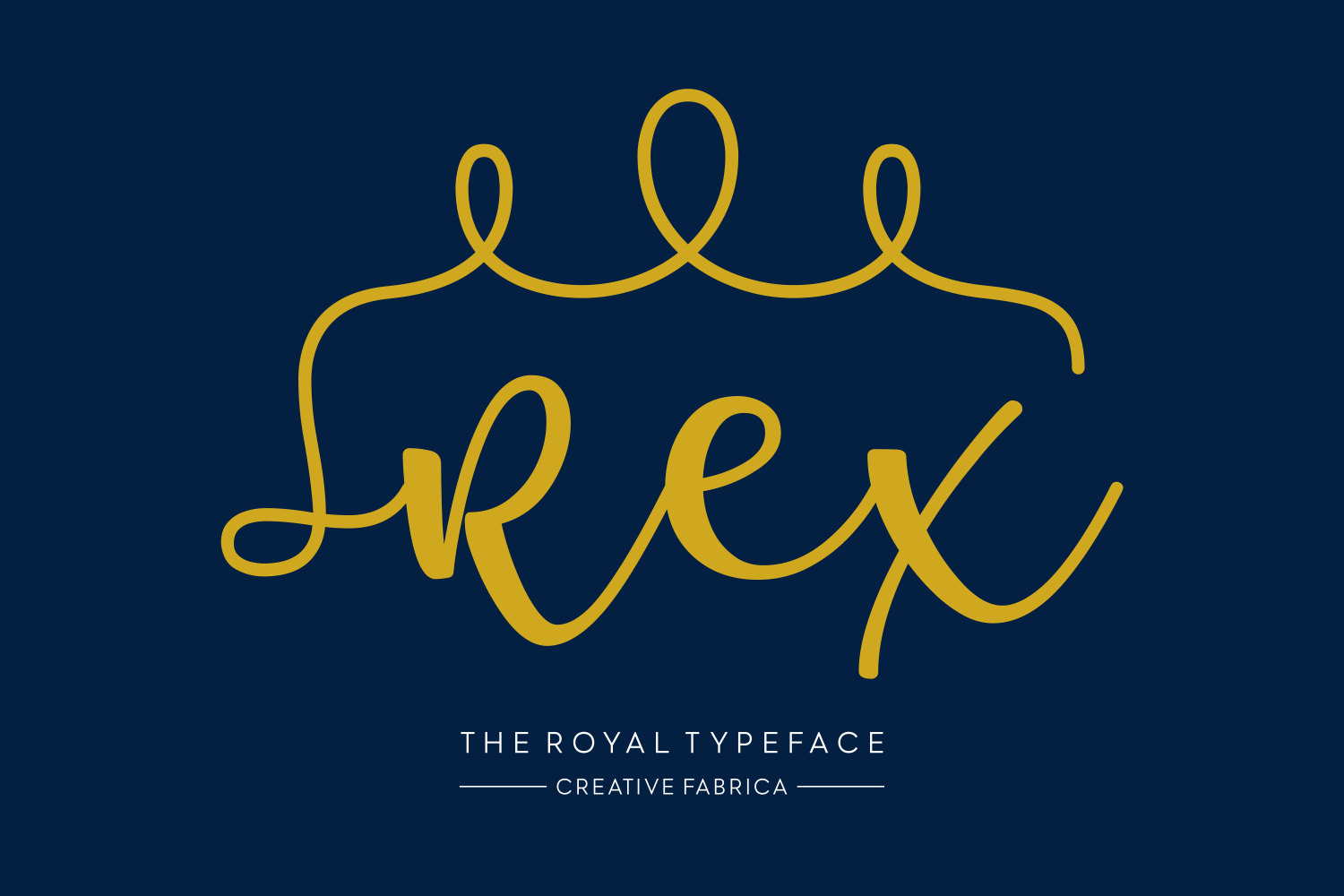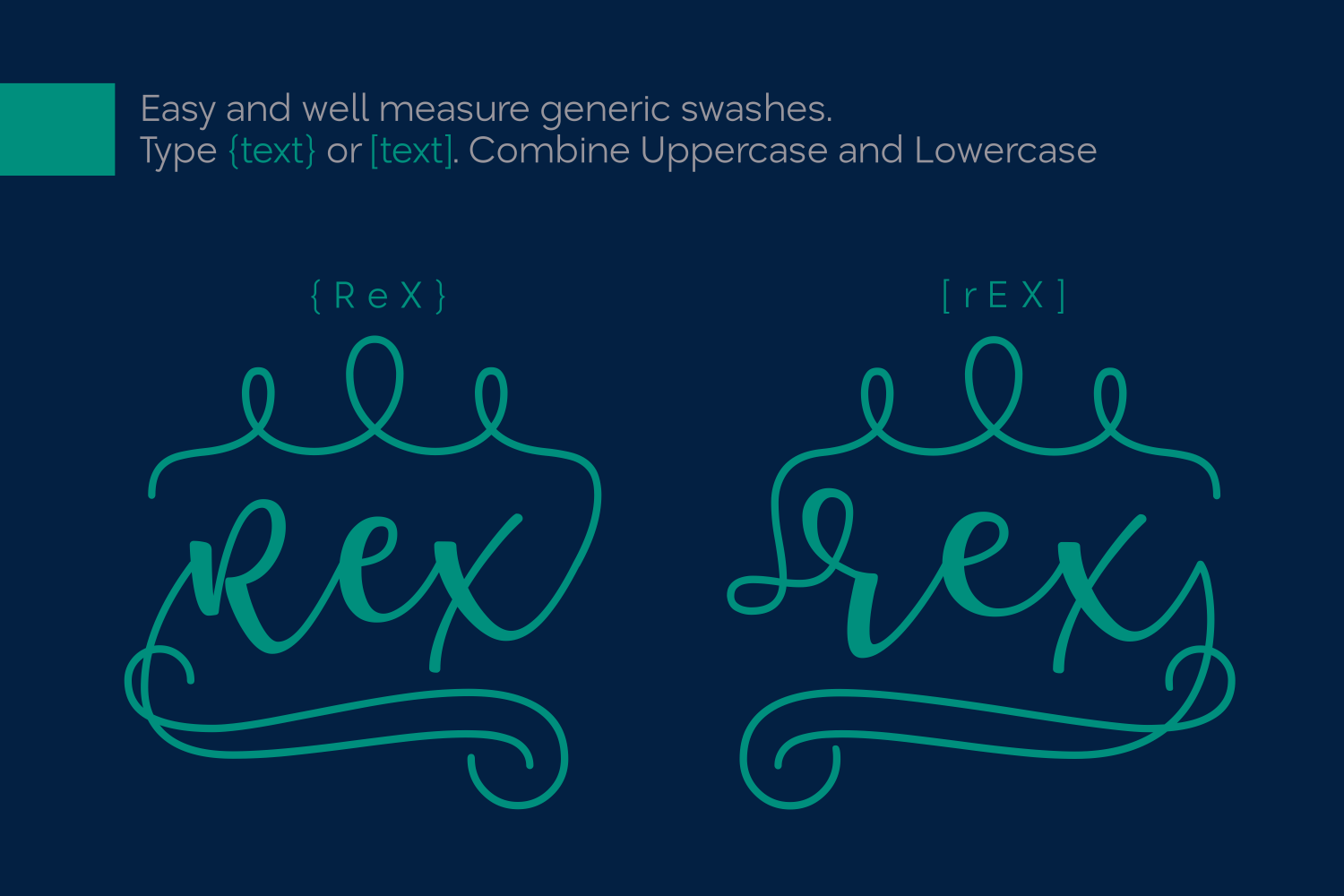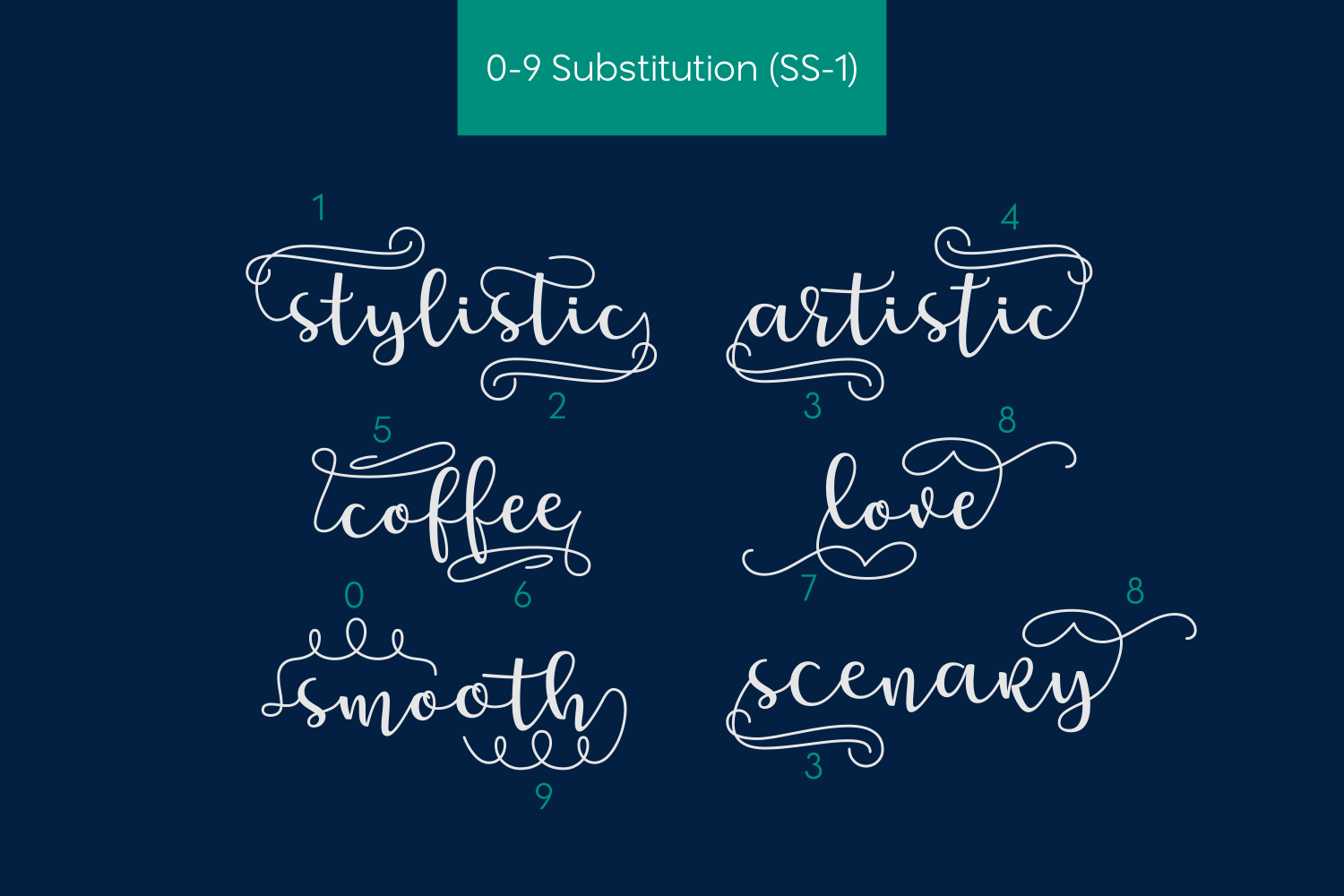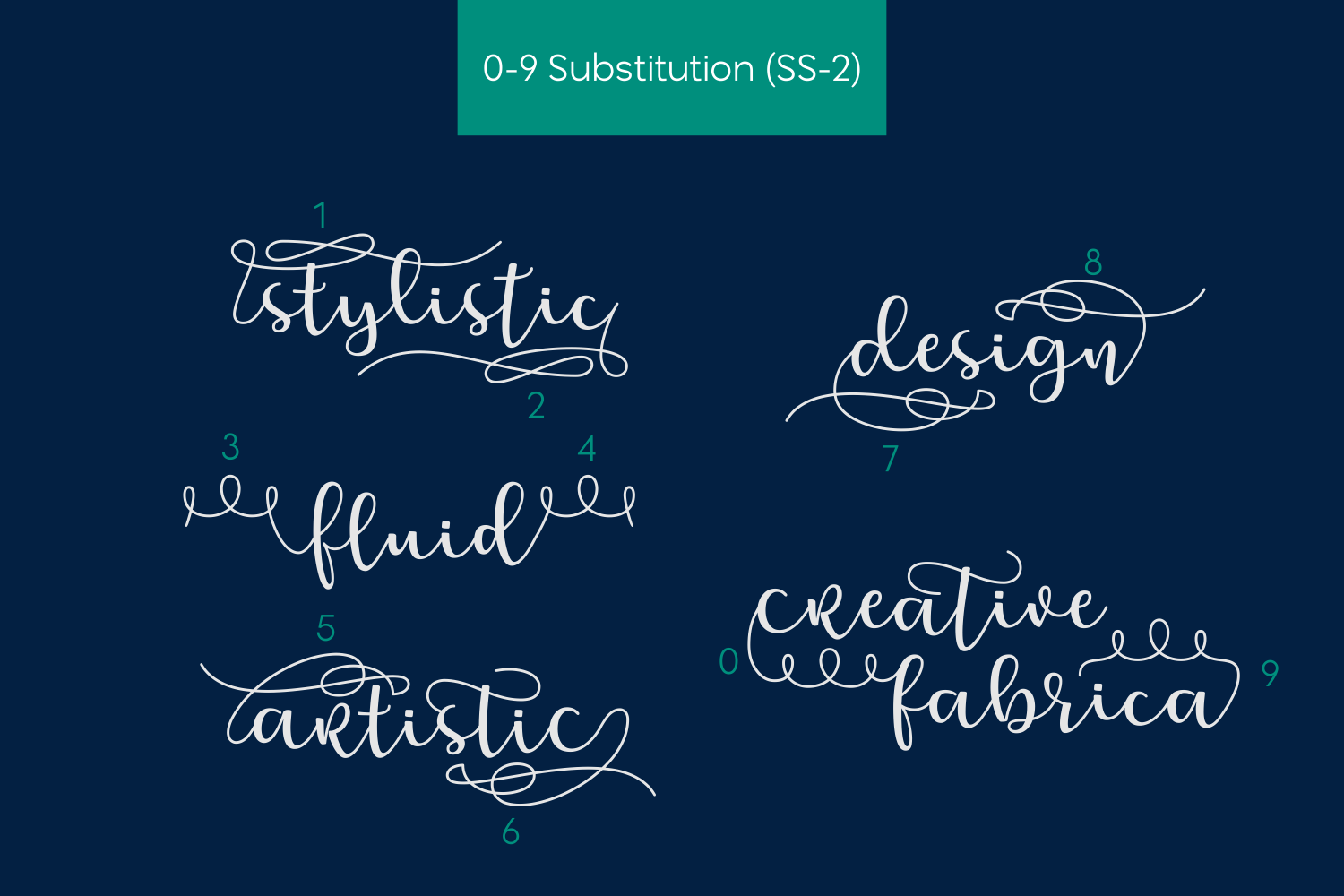
Introduction to Rex Font
Have you ever found yourself staring at a blank page, searching for the perfect font to bring your creative project to life? That was me, until I stumbled upon Rex Font – a game-changing design resource that’s about to become your new best friend. With its unique blend of modern style and royal flair, Rex Font is the perfect choice for designers looking to add a touch of sophistication to their work.
As I began to explore the features of Rex Font, I was immediately drawn to its versatility and ease of use. The font’s swashes are incredibly easy to access, making it a breeze to add a decorative touch to your designs. Whether you’re working on a logo, brochure, or website, Rex Font is sure to impress. And the best part? It’s available for a free download, making it an accessible high-quality design resource for creatives of all levels.
Key Features of Rex Font
- High-quality, professional font suitable for various design projects, including creative works and corporate branding.
- Designed with a high level of detail, resulting in a visually appealing and engaging font for creative projects.
Honest Review: Rex Font
- ✨ Transparency – The Rex Font comes with a transparent background, which makes it easy to use in various creative projects.
- ✨ Customizability – The font is highly customizable, allowing me to tweak it to suit my design needs.
- ✨ Professional look – The font exudes a professional look and feel, making it perfect for business and corporate designs.
However, I did encounter a few limitations with the Rex Font. For instance:
- ⚠️ Limited font styles – While the font is highly customizable, it’s limited to a few pre-defined styles.
Overall, I’m impressed with the Rex Font. It’s a solid addition to my design arsenal, and I would definitely recommend it to fellow designers. However, keep in mind its limitations before making a decision.
Rex Font
Tips for Getting the Most Out of Rex Font
To get the most out of Rex Font, experiment with different font sizes, colors, and styles. You can also combine Rex Font with other design elements, such as images and graphics, to create a unique and engaging visual design.
Common Use Cases for Rex Font
Rex Font is perfect for a variety of creative projects, including blog posts, social media graphics, and presentations. Its high-quality design and transparent background make it ideal for use in a range of applications, from simple text overlays to complex visual designs.